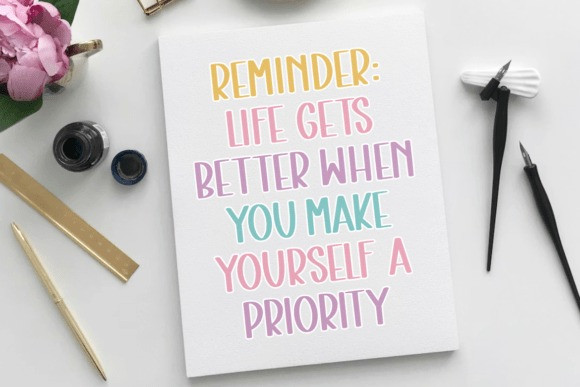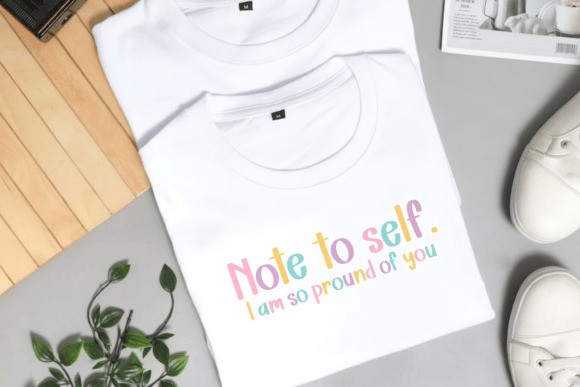
Sweet Twinkle Font
Sweet Twinkle Font a vibrant and energetic display font that feels like a celebration.This typeface features tall, slender characters with a whimsical, hand-drawn bounce and a sparkling “star” motif integrated into the letterforms. The Sweet Twinkle font is designed to capture attention and spread joy, making it perfect for youth brands, party invitations, and playful digital content.
The Sweet Twinkle typeface is a standout choice for colorful branding and festive event graphics. Its multi-tonal potential (as seen in the preview) allows for a dynamic and fun visual hierarchy. Use the Sweet Twinkle font for headings on birthday cards, posters for school events, or as a primary logo for a creative hobby blog.
It pairs wonderfully with simple, clean fonts that let its “twinkling” personality shine. Whether you’re designing for a carnival or a candy shop, the Sweet Twinkle typeface adds a touch of magic and a whole lot of fun to every word.